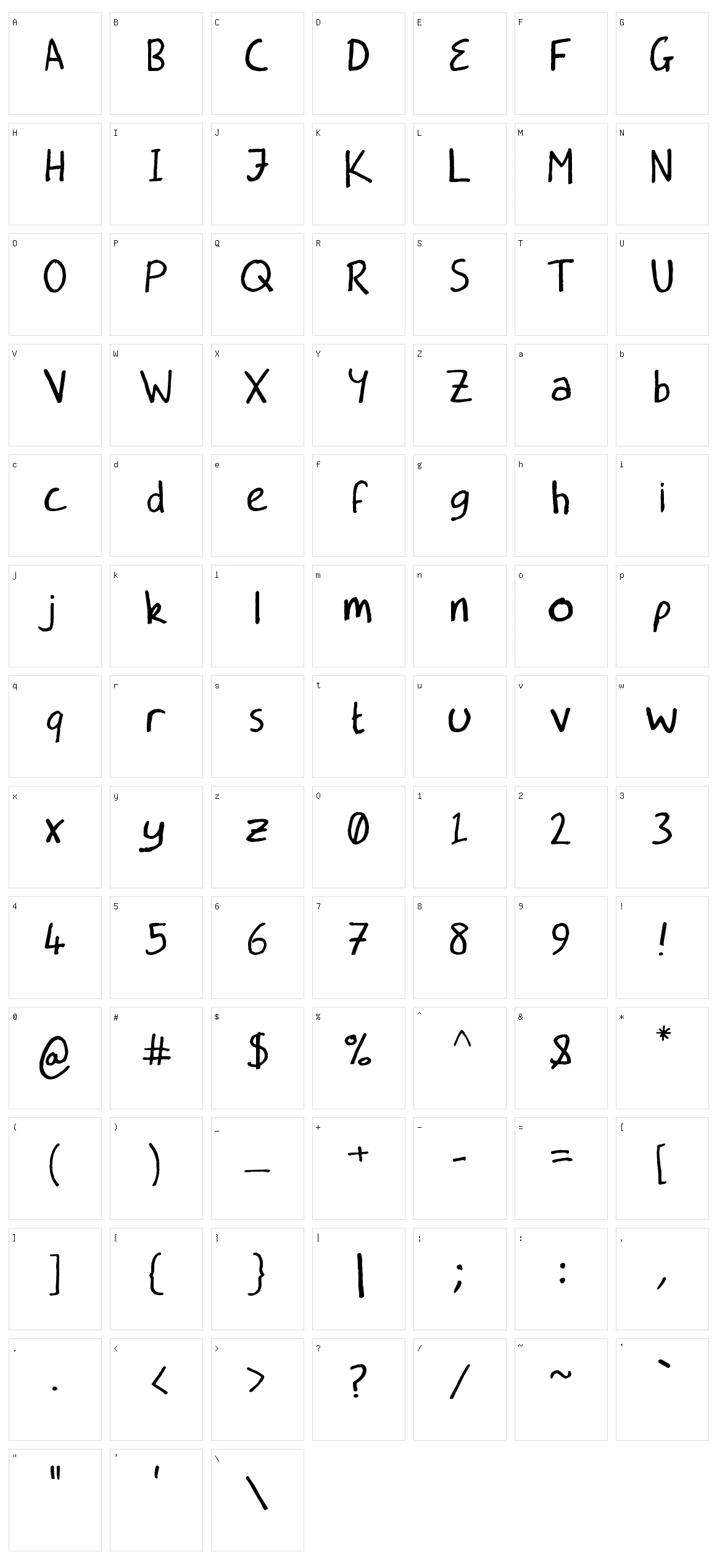
The free font Dead Ends Lettering is carefully designed by Cos Ryan, showcasing a thoughtful balance of creativity and usability and falls under the Script font style. When you download the ZIP file, it contains only 32.5 KB of font files, making it lightweight and quick to download. Please review the license details below to understand permitted usage and distribution rights. If license information is not available, we recommend using this font for personal projects only or contacting the author directly for commercial usage permissions.